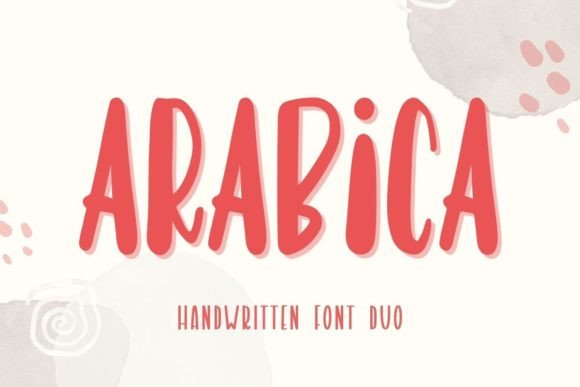
Step into the captivating world of Arabica Font, a handwritten and display font family designed to infuse joy and creativity into your digital endeavors. Crafted with meticulous attention to detail by the talented AnningArts, Arabica Font offers two distinct styles: Regular and Outline. Each style exudes charm and character, promising to elevate your designs and leave a lasting impression on your audience.
Immerse yourself in the boundless possibilities of Arabica Font. Its playful and expressive nature makes it an ideal companion for crafting unique logos, eye-catching posters, and captivating social media graphics. The Regular style, with its flowing strokes and natural charm, adds a personal touch to your designs, making them stand out from the ordinary.
Unleash your imagination and explore the artistic possibilities of the Outline style. Its bold and striking lines create a captivating outline effect, perfect for adding depth and dimension to your designs. Whether you're creating invitations, greeting cards, or product labels, Arabica Font's Outline style will add a touch of sophistication and elegance to your creations.
Beyond its aesthetic appeal, Arabica Font also excels in functionality. Its versatile nature makes it suitable for a wide range of applications, including web design, graphic design, and even handwriting. Its clean and legible letterforms ensure that your message is conveyed with clarity and impact, regardless of the medium.
With Arabica Font, the possibilities are endless. Let your creativity soar as you explore a spectrum of design opportunities. Transform your digital presence, captivate your audience, and create designs that truly resonate with your passion and vision.